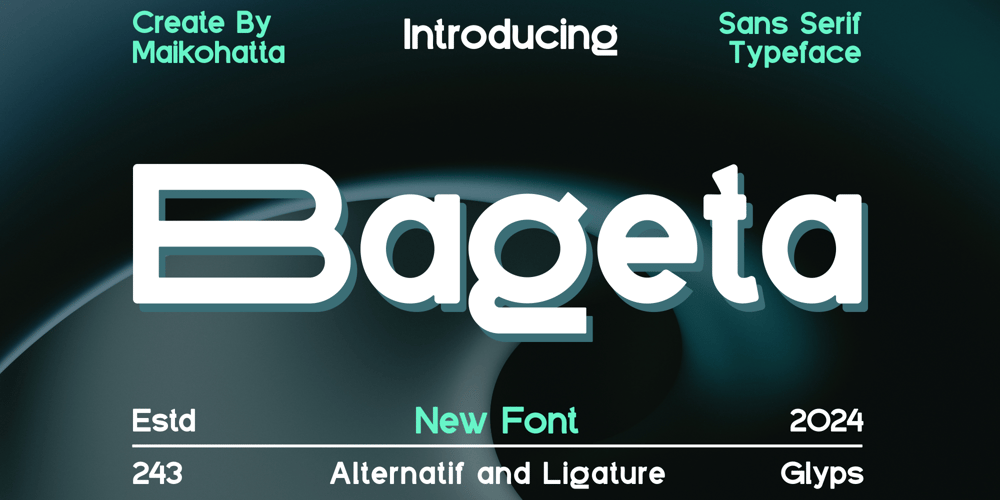
Bageta Font Family was designed by Gilang Ternadho and published by Maikohatta. Bageta contains 1 styles and family package options. Introducing our new product Bageta – Sans Serif Typeface is a bold and authentic display font. The font is suitable for any branding project like logo, Template Design, esport, and many more. outstanding in a wide range of contexts.